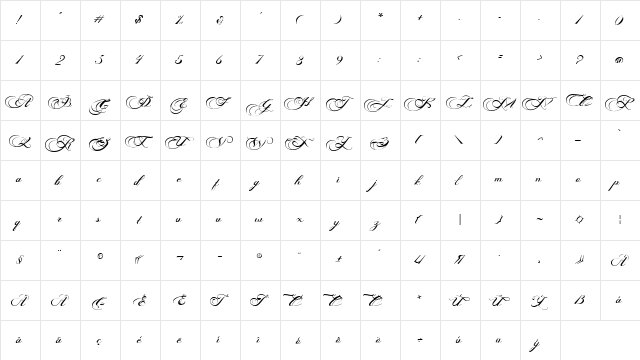
Photograph Script Free Personal Regular
| Foundry | Ferry Hadriyan (fey design) |
Design Context for Photograph Script Free Personal Typeface
Photograph Script Free Personal brings a calligraphic fluidity to the page — its connecting strokes and expressive curves give it an unmistakably human quality.
Font Pairing: Combine Photograph Script Free Personal with a simple geometric sans for maximum contrast — the tension between flowing curves and clean structure is a classic typographic pairing.
Pro Tip: Pair Photograph Script Free Personal with a clean sans-serif for supporting text. The contrast between fluid script and geometric structure creates an elegant typographic hierarchy.